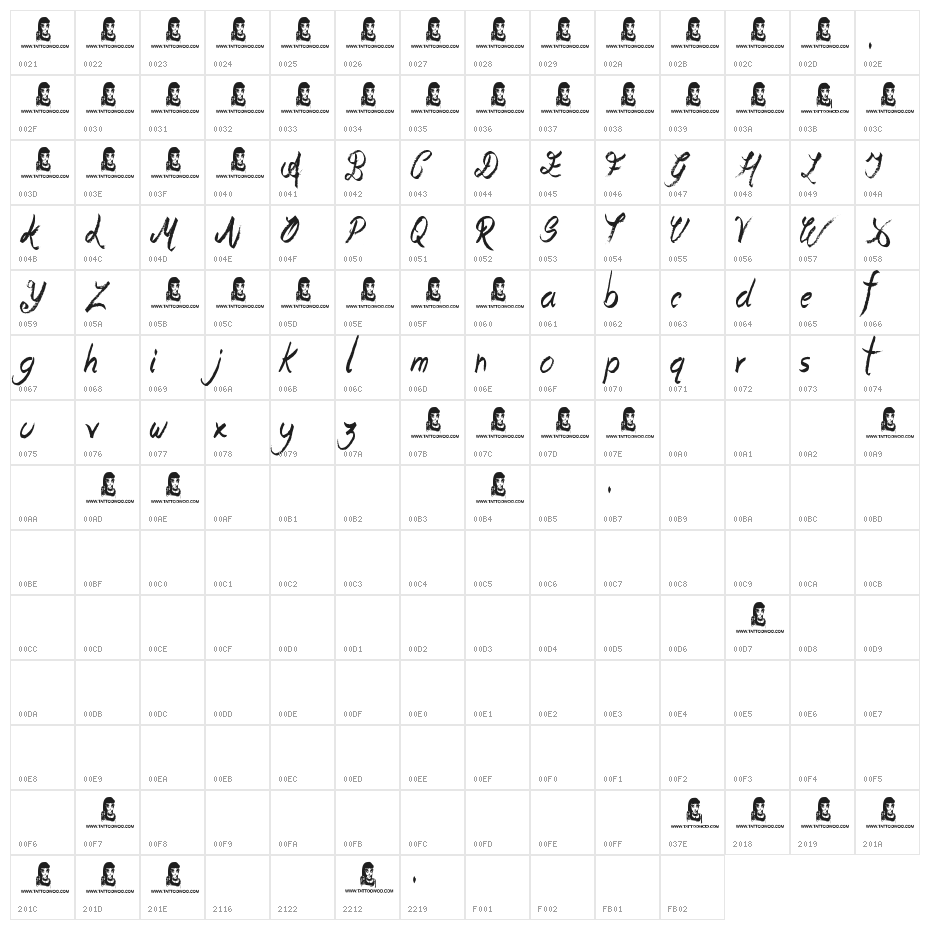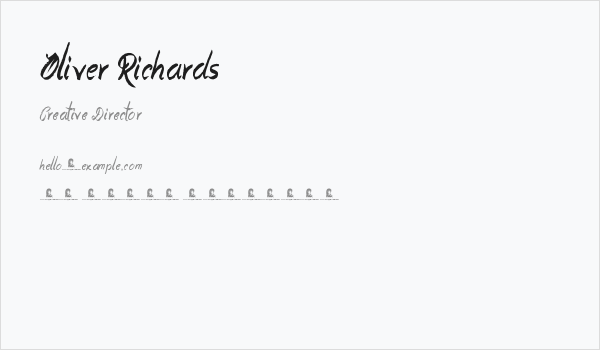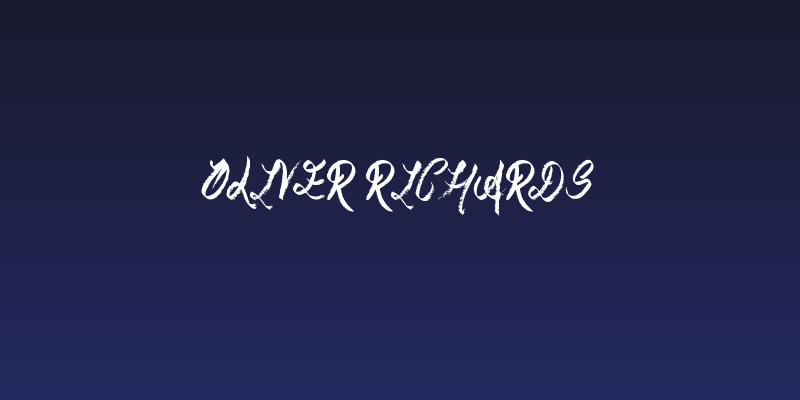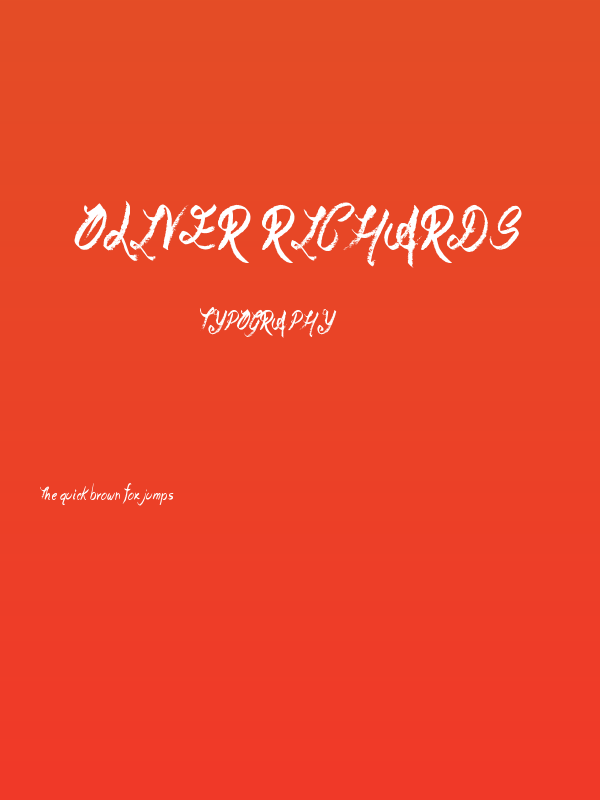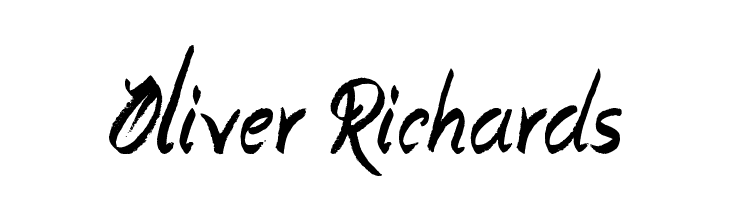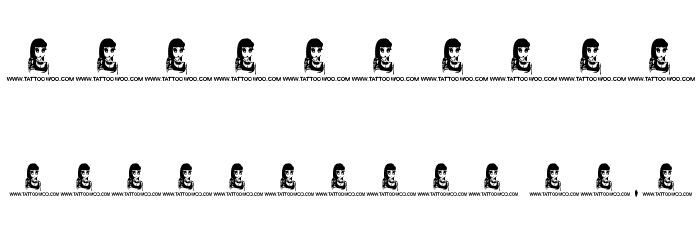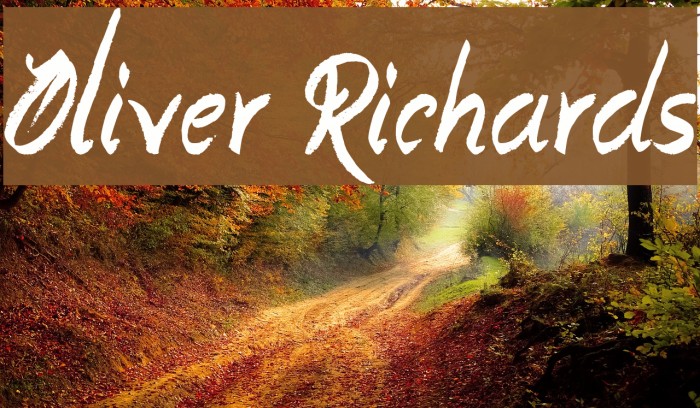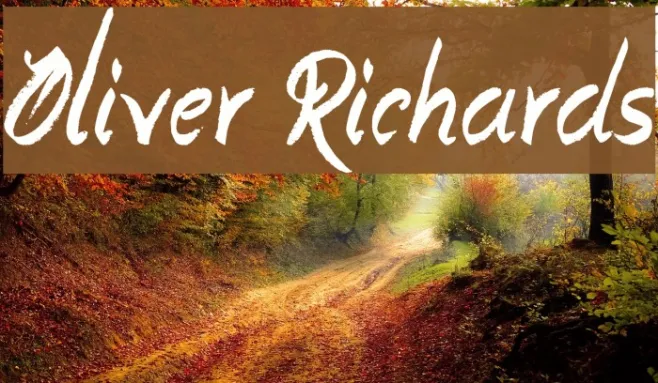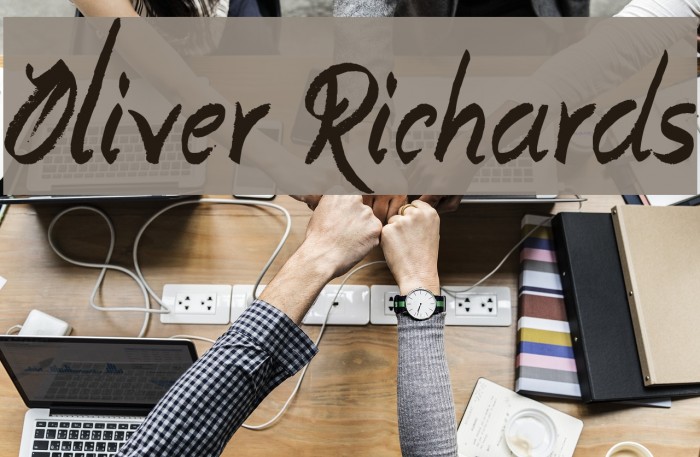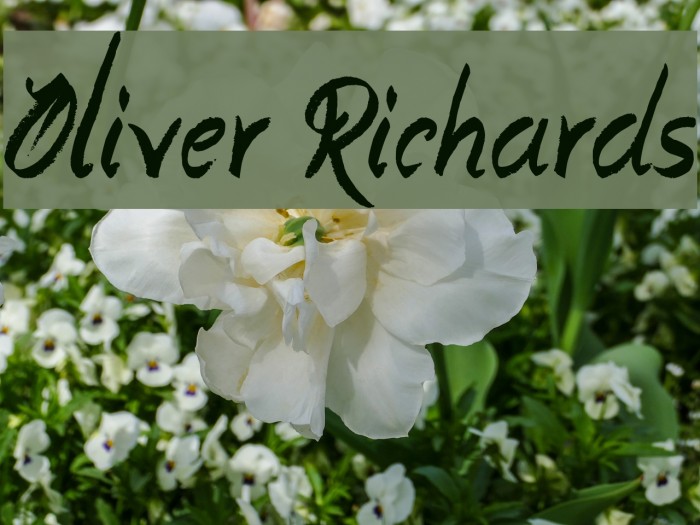
Oliver Richards Font
Oliver Richards Description
This font features a bold and expressive brush script style, characterized by its dynamic and fluid strokes. The letters are crafted with a sense of movement and energy, giving them a lively and artistic appearance. The uppercase letters exhibit a dramatic flair with sweeping curves and varying stroke widths, while the lowercase letters maintain a consistent flow with a slightly more restrained design. The overall texture of the font is rough and textured, adding a handcrafted feel that enhances its visual impact. This font is ideal for projects that require a personal touch or an artistic edge.
| Use Case | Logos, Headlines, Artistic projects |
| Proposed Projects | Ideal for branding, logo design, posters, and invitations where an artistic and personal touch is desired. |